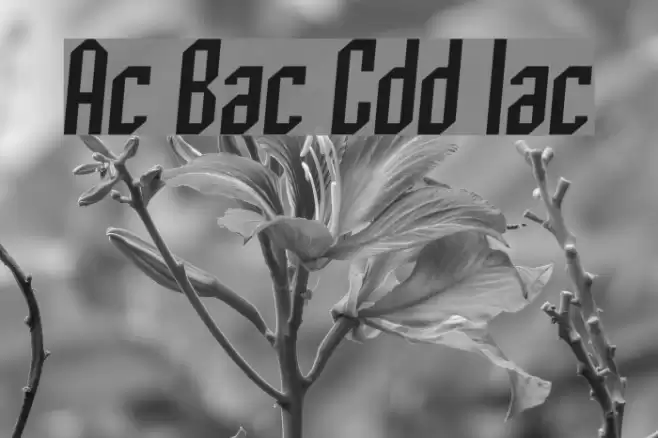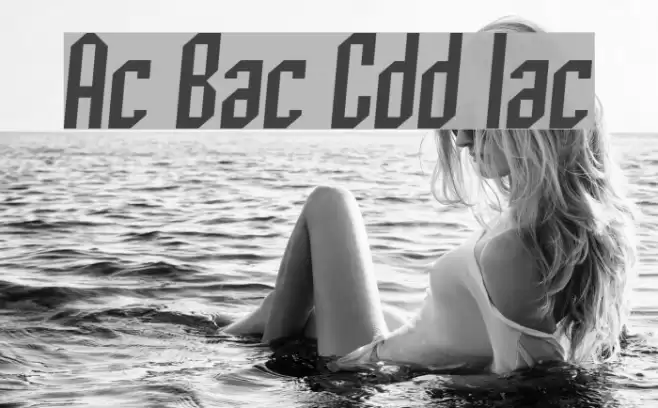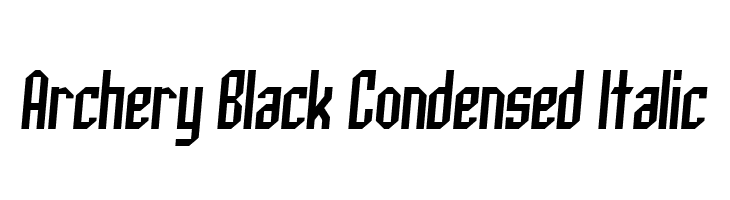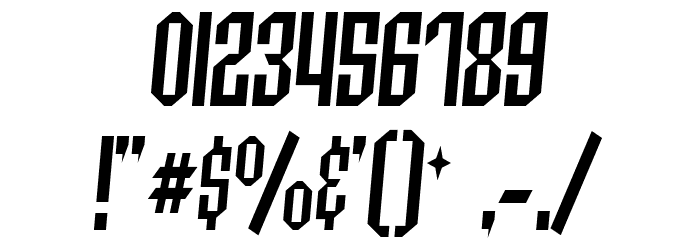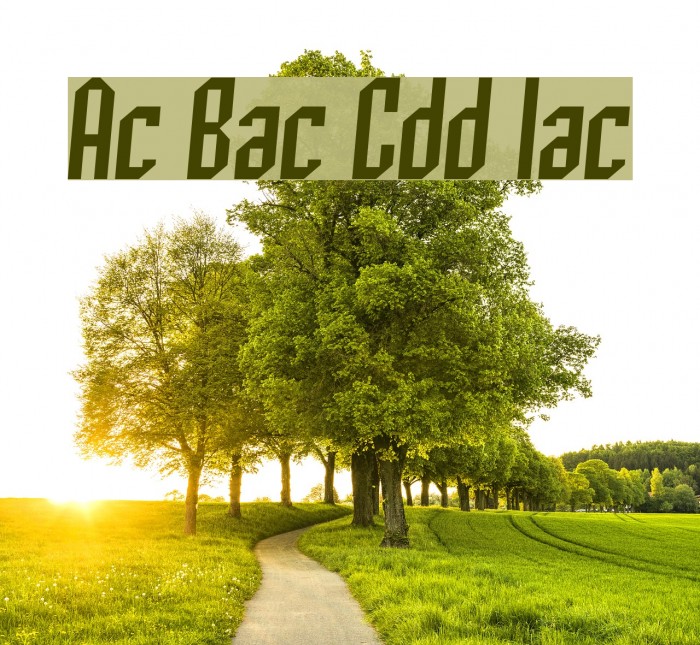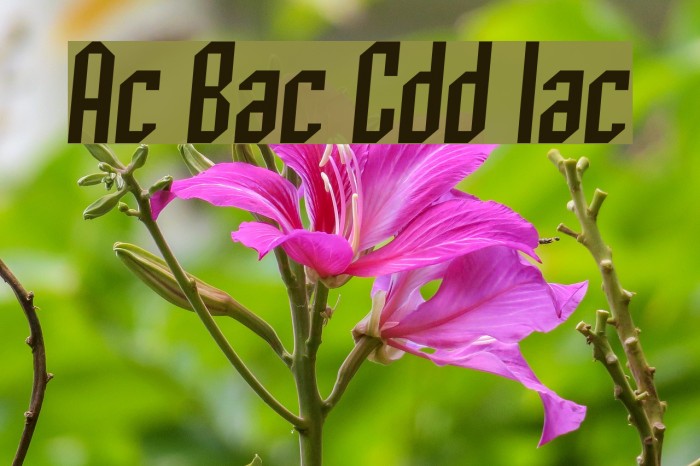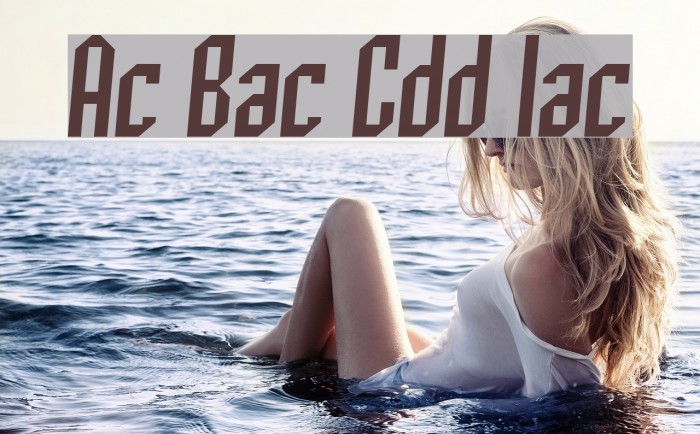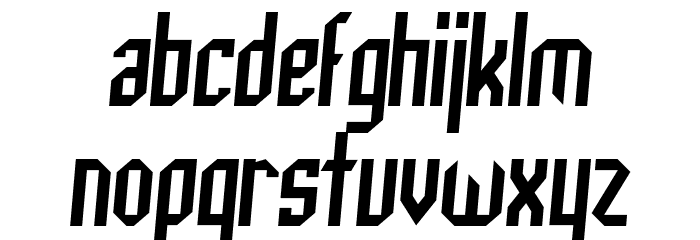
Archery Black Condensed Italic Font
Archery Black Condensed Italic Description
This font features a bold and condensed style with a distinct italic slant, giving it a dynamic and energetic appearance. The characters are sharply angular, with a geometric influence that adds a modern touch. The uppercase letters are tall and commanding, while the lowercase letters maintain a consistent style, ensuring readability. The numerals are equally bold, matching the overall aesthetic. Special characters are included, maintaining the same angular and condensed design. This font is ideal for projects that require a strong visual impact and a contemporary feel.
A bold, condensed, and italic font with a modern, angular design from Futuristic fonts.
- Proposed Projects: Ideal for sports branding, dynamic posters, modern logos, and eye-catching headlines.
- Character Spacing: Tight